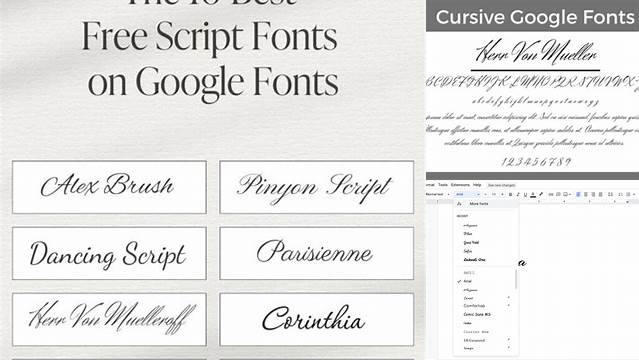
Elegant Cursive Fonts For Google Docs: A Guide
Are you looking to add a touch of elegance and personality to your Google Docs? Well, you've come to the right place! Cursive fonts can transform your documents, making them look more stylish and unique. Whether you're crafting a formal invitation, designing a creative resume, or simply want your notes to look a bit fancier, selecting the right cursive font is key. In this article, we'll dive into the world of cursive fonts available in Google Docs, explore some fantastic options, and guide you on how to make the most of them. Let's get started and discover how to elevate your documents with beautiful cursive fonts!
Why Use Cursive Fonts in Google Docs?
Using cursive fonts in Google Docs can significantly enhance the visual appeal and impact of your documents. But why exactly should you consider incorporating these elegant typefaces into your work? There are several compelling reasons.
First and foremost, cursive fonts add a touch of personality and flair to your documents. In a world where most digital text is presented in straightforward, sans-serif fonts like Arial or Calibri, cursive fonts stand out. They bring a sense of individuality and style, making your document more memorable and engaging. Imagine crafting a wedding invitation or a heartfelt letter – a cursive font can convey warmth and sincerity that a standard font simply can't match.
Another great reason to use cursive fonts is to create a visual hierarchy within your document. By using cursive for headings, subheadings, or key phrases, you can draw the reader's eye to important sections and create a more dynamic layout. This can be particularly useful in reports, presentations, or even blog posts where you want to highlight specific information. Just be careful not to overuse cursive, as too much can make the document look cluttered and difficult to read.
Cursive fonts also have a knack for evoking a sense of tradition and elegance. They hark back to the days of handwritten letters and formal calligraphy, lending a touch of sophistication to your work. This makes them ideal for documents where you want to convey a sense of class and refinement, such as certificates, diplomas, or even marketing materials for luxury brands. However, it's crucial to choose a cursive font that is both elegant and legible. A font that is too ornate or difficult to read will defeat the purpose and detract from your message.
In certain contexts, using cursive fonts can also help you express creativity and artistry. If you're designing a poster, creating a logo, or working on any kind of visual project, cursive fonts can add a unique and artistic touch. They can convey a sense of playfulness, informality, or even rebellion, depending on the specific font you choose. Just make sure the font aligns with the overall tone and message of your project.
Lastly, let's not forget the simple fact that cursive fonts can make your documents more visually appealing. In a world saturated with digital content, anything you can do to make your work stand out is a plus. A well-chosen cursive font can transform a plain document into something truly eye-catching, helping you grab the reader's attention and keep them engaged.
In conclusion, the reasons to use cursive fonts in Google Docs are many and varied. From adding personality and flair to creating visual hierarchy and expressing creativity, these elegant typefaces can be powerful tools in your design arsenal. So, go ahead and experiment with different cursive fonts – you might be surprised at the impact they can have on your documents!
Top Cursive Font Choices in Google Docs
Now that we've explored the many reasons to use cursive fonts, let's dive into some specific top choices available in Google Docs. Google Docs offers a wide variety of fonts, but not all cursive fonts are created equal. Some are more legible, elegant, or suitable for different purposes than others. Here, we'll highlight some of the best cursive fonts Google Docs has to offer, giving you a solid starting point for your creative endeavors.
One of the most popular and versatile cursive fonts in Google Docs is "Pacifico." Pacifico is a fun and friendly font with a retro vibe, reminiscent of classic surf culture. It's highly legible and works well for headings, subheadings, or even short paragraphs. Its playful nature makes it ideal for informal documents, invitations, or blog graphics. Pacifico is a great choice when you want to add a touch of whimsy and personality to your work.
Another excellent option is "Dancing Script." As the name suggests, Dancing Script has a lively and dynamic feel, with letters that seem to dance across the page. It's a more formal cursive font than Pacifico, but still maintains a sense of playfulness. Dancing Script is perfect for invitations, thank-you notes, or any document where you want to convey a sense of warmth and elegance. It's also a good choice for adding a touch of personality to your email signature.
For a more classic and refined look, consider using "Great Vibes." Great Vibes is a beautiful calligraphy-style font with elegant flourishes and a formal feel. It's ideal for wedding invitations, certificates, diplomas, or any document where you want to convey a sense of tradition and sophistication. However, it's important to use Great Vibes sparingly, as it can be less legible than other cursive fonts in larger blocks of text.
If you're looking for a font that strikes a balance between elegance and readability, "Lobster Two" is an excellent choice. Lobster Two is a slightly condensed cursive font with a vintage feel. It's highly legible and works well in a variety of contexts, from headings and subheadings to body text. Lobster Two is a versatile option that can add a touch of style to your documents without sacrificing readability.
Another great option for a clean and modern cursive look is "Caveat." Caveat is a handwritten-style font that feels personal and approachable. It's less formal than some of the other cursive fonts on this list, making it a good choice for notes, journal entries, or informal correspondence. Caveat has a casual and friendly vibe that can make your documents feel more authentic and relatable.
Last but not least, let's not forget about "Cookie." Cookie is a sweet and charming cursive font with a rounded, almost childlike appearance. It's perfect for projects aimed at children, such as birthday invitations, posters, or educational materials. Cookie has a playful and innocent feel that can add a touch of fun to your work.
These are just a few of the many fantastic cursive fonts available in Google Docs. Each font has its unique personality and is suited for different purposes. The key is to experiment and find the font that best matches the tone and message of your document. So, go ahead and explore the world of cursive fonts in Google Docs – you might discover a new favorite that transforms the way you create documents!
How to Add and Use Cursive Fonts in Google Docs
Now that you're acquainted with some of the top cursive font choices in Google Docs, let's get down to the nitty-gritty of how to add and use them. Google Docs makes it relatively straightforward to access and utilize a wide array of fonts, including those elegant cursive styles we've been discussing. Here's a step-by-step guide to help you incorporate cursive fonts into your documents seamlessly.
First things first, you need to open your Google Docs document. If you're starting from scratch, create a new document. If you're working on an existing document, simply open it in Google Docs. Once your document is open, you're ready to start exploring the world of cursive fonts.
Next, select the text you want to apply the cursive font to. You can select a single word, a sentence, a paragraph, or even the entire document. The choice is yours, depending on how you want to use the cursive font. If you're planning to use cursive for headings or subheadings, you'll likely select those specific sections. If you want to use cursive for the entire document, you can select all the text by pressing Ctrl+A (or Cmd+A on a Mac).
Once you've selected the text, look for the font menu in the Google Docs toolbar. It's usually located near the left side of the toolbar and displays the name of the current font, such as "Arial" or "Times New Roman." Click on the font name to open the font menu. This will reveal a dropdown list of available fonts.
If the cursive font you want to use is already in the list, simply select it from the dropdown menu. Google Docs has a decent selection of pre-loaded fonts, including some cursive options like Pacifico, Dancing Script, and Great Vibes. However, if the font you're looking for isn't in the list, don't worry – Google Docs allows you to add more fonts.
To add more fonts, click on "More fonts" at the bottom of the font dropdown menu. This will open a new window with a comprehensive list of fonts available in Google Docs. You can browse the fonts by category (such as "Script" for cursive fonts), popularity, or alphabetical order. You can also use the search bar to find a specific font by name.
Once you've found the cursive font you want to use, click on it to add it to your font list. You can select multiple fonts at once if you like. The selected fonts will appear in the "My fonts" section at the top of the window. When you're finished adding fonts, click "OK" to close the window.
Now, the cursive font you added should appear in the font dropdown menu. Simply select it to apply it to the selected text. You should see the text instantly change to the cursive font. If you're not happy with the result, you can always try a different font or adjust the font size and style.
Remember, using cursive fonts effectively is all about balance. While cursive fonts can add a touch of elegance and personality to your documents, they can also be more difficult to read than standard fonts. It's generally best to use cursive fonts sparingly, for headings, subheadings, or short phrases. Avoid using cursive for large blocks of text, as this can make your document tiring to read.
In addition to changing the font, you can also adjust the font size, color, and style (bold, italic, underline) to further customize your text. Experiment with different combinations to achieve the look you want. You can also use the formatting options in Google Docs to adjust the spacing, alignment, and indentation of your text.
Finally, don't forget to proofread your document after applying the cursive font. Make sure the text is legible and that the font is appropriate for the overall tone and message of your document. Sometimes, a cursive font that looks great in isolation may not work well in the context of your document.
In conclusion, adding and using cursive fonts in Google Docs is a simple process that can significantly enhance the visual appeal of your documents. By following these steps and experimenting with different fonts and formatting options, you can create documents that are both stylish and effective. So, go ahead and unleash your creativity with cursive fonts!
Tips for Using Cursive Fonts Effectively
Using cursive fonts can add a touch of elegance and personality to your Google Docs, but it's crucial to use them effectively. Overusing cursive or choosing the wrong font can actually detract from your document's readability and overall impact. Here are some tips to help you use cursive fonts like a pro, ensuring your documents look both stylish and professional.
One of the most important tips for using cursive fonts is to use them sparingly. Cursive fonts are best used for accents, headings, subheadings, or short phrases. They are generally not suitable for large blocks of text, as they can be more difficult to read than standard fonts. Imagine trying to read an entire report or essay written in cursive – it would be quite a strain on the eyes! By limiting your use of cursive, you can create a greater visual impact and ensure your document remains legible.
Another key tip is to choose the right cursive font for the occasion. Not all cursive fonts are created equal. Some are more formal and elegant, while others are more playful and casual. Consider the tone and message of your document when selecting a cursive font. For example, a formal invitation or certificate might call for a font like Great Vibes, while a birthday card or informal note might be better suited to a font like Pacifico or Cookie. Using a font that doesn't match the tone of your document can create a jarring effect and undermine your message.
Readability should always be a top priority when choosing and using cursive fonts. Some cursive fonts are highly ornate and difficult to read, even in small doses. Before committing to a particular font, make sure it's legible, especially in the context of your document. Consider the font size, spacing, and overall design. It's often a good idea to test the font with a sample of your text before applying it to the entire document. If you find yourself squinting to decipher the words, it's probably best to choose a different font.
When using cursive fonts, contrast is your friend. Use cursive fonts in conjunction with standard fonts to create visual interest and hierarchy. For example, you might use a cursive font for headings and subheadings and a standard font for body text. This helps to break up the text and make it easier for readers to navigate your document. Just make sure the cursive font complements the standard font you're using. Avoid pairing two fonts that are too similar, as this can create a cluttered and confusing look.
Font size and spacing also play a crucial role in the effective use of cursive fonts. Cursive fonts often look best when they are slightly larger than your body text. This helps them stand out and makes them easier to read. You may also need to adjust the spacing between letters and lines to improve readability. Some cursive fonts have intricate flourishes that can overlap or collide if the spacing is too tight. Experiment with different spacing settings until you achieve a look that is both visually appealing and legible.
Before finalizing your document, always preview it to see how the cursive font looks in context. What looks good on your screen may not translate well in print or on a different device. Take the time to review your document carefully, paying attention to the readability, spacing, and overall design. If possible, ask a friend or colleague to review your document as well. A fresh pair of eyes can often spot issues that you might have missed.
Lastly, don't be afraid to experiment and have fun with cursive fonts. While it's important to follow these tips, design is also a matter of personal preference. Try out different fonts, sizes, and styles to see what works best for you and your document. You might discover a unique combination that perfectly captures your message and style.
By following these tips, you can harness the power of cursive fonts to create documents that are both beautiful and effective. So, go ahead and add a touch of elegance to your Google Docs – just remember to use cursive fonts wisely and with intention!
Troubleshooting Common Issues with Cursive Fonts
Even with the best intentions, you might encounter some common issues when working with cursive fonts in Google Docs. These issues can range from legibility problems to formatting quirks, but don't worry – most of them are easily resolved. Let's troubleshoot some of the most frequent challenges you might face and how to overcome them, ensuring your documents always look their best.
One of the most common issues is poor legibility. As we've discussed, some cursive fonts can be quite ornate and difficult to read, especially in larger blocks of text. If you're finding that your cursive font is straining your eyes or the eyes of your readers, the first step is to try a different font. There are many cursive fonts available in Google Docs, and some are inherently more legible than others. Consider switching to a cleaner, less embellished font like Lobster Two or Caveat.
Another factor that can affect legibility is font size. If your cursive font is too small, it can become difficult to decipher the individual letters. Try increasing the font size slightly to see if that improves readability. You might also need to adjust the spacing between letters and lines to prevent the characters from overlapping or appearing cramped. Remember, the goal is to make your text as easy as possible to read, so don't be afraid to experiment with different font sizes and spacing settings.
Spacing issues are another frequent challenge when working with cursive fonts. Cursive fonts often have intricate flourishes and swashes that can collide with adjacent letters if the spacing is too tight. This can create a messy and illegible look. To fix this, try increasing the letter spacing or the line spacing in Google Docs. You can find these settings in the "Format" menu under "Line spacing" or "Custom spacing." Experiment with different values until you achieve a look that is both visually appealing and easy to read.
Sometimes, formatting inconsistencies can arise when you copy and paste text that uses cursive fonts. The font might not transfer correctly, or the formatting might get messed up in the process. If you encounter this issue, try pasting the text as plain text first and then applying the cursive font manually. This will ensure that the font and formatting are consistent throughout your document. You can also use the "Clear formatting" option in Google Docs to remove any unwanted formatting and start fresh.
Another issue you might encounter is font availability. If you're collaborating with others on a Google Docs document, they might not have the same fonts installed on their computers. This can cause the document to display differently for them, potentially affecting the appearance of your cursive fonts. To avoid this issue, it's best to use fonts that are widely available and supported by Google Docs. All the fonts we've recommended in this article are included in the Google Docs font library, so you shouldn't have any problems with compatibility.
If you're using a cursive font for headings or titles, you might find that it doesn't align properly with the rest of your text. This can be due to the unique design of the cursive font, which might have different height and width metrics than standard fonts. To fix this, try adjusting the alignment settings in Google Docs. You can align the text to the left, center, or right, or use the justify option to distribute the text evenly across the line. Experiment with different alignment options until you achieve a look that is balanced and visually appealing.
Finally, if you're still having trouble with cursive fonts, consider simplifying your design. Sometimes, the best solution is to use cursive fonts more sparingly or to choose a simpler cursive font that is easier to read. Remember, the goal is to communicate your message effectively, and a font that is too flashy or difficult to read can actually detract from your message.
By troubleshooting these common issues, you can ensure that your cursive fonts always enhance your documents, rather than detracting from them. With a little patience and attention to detail, you can master the art of using cursive fonts in Google Docs and create documents that are both stylish and professional.
In conclusion, using cursive fonts in Google Docs is a fantastic way to add a touch of elegance, personality, and visual interest to your documents. Whether you're crafting formal invitations, designing creative resumes, or simply want to make your notes look more stylish, cursive fonts can be a powerful tool in your design arsenal. We've explored the many reasons to use cursive fonts, highlighted some of the top choices available in Google Docs, and provided a step-by-step guide on how to add and use them effectively. We've also shared some valuable tips for using cursive fonts wisely and troubleshooting common issues you might encounter.
Remember, the key to using cursive fonts effectively is balance and intention. While these fonts can add a unique flair to your documents, it's crucial to use them sparingly and choose fonts that are both visually appealing and legible. Consider the tone and message of your document, and select a cursive font that aligns with your overall goals. Experiment with different font sizes, spacing settings, and formatting options to achieve the look you want. And always proofread your document carefully to ensure that the cursive font enhances your message, rather than detracting from it.
With the knowledge and tips you've gained from this article, you're well-equipped to unleash your creativity and transform your Google Docs into visually stunning masterpieces. So, go ahead and explore the world of cursive fonts – you might discover a new favorite that elevates your documents to the next level. Happy designing!